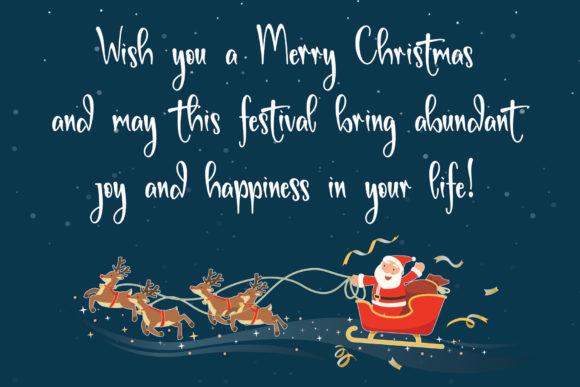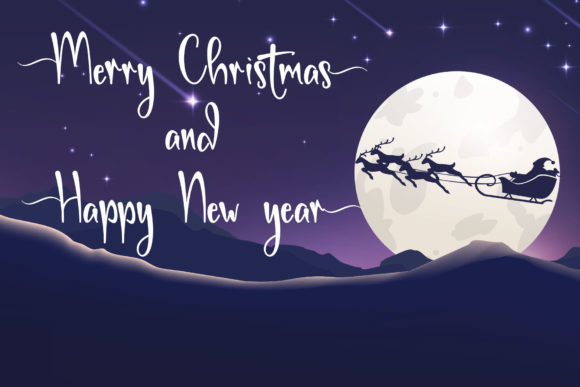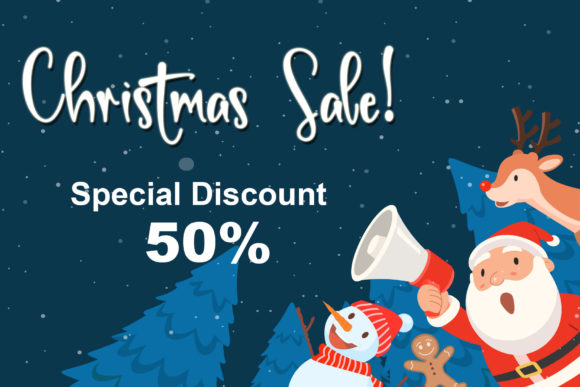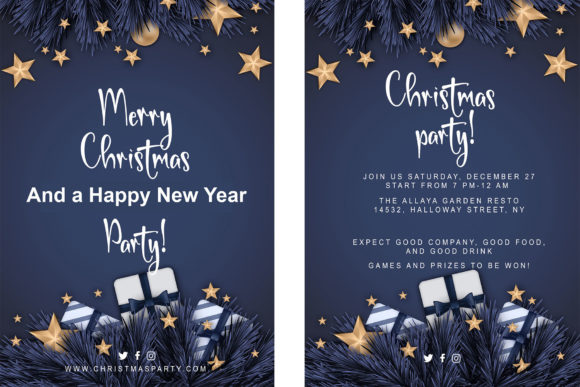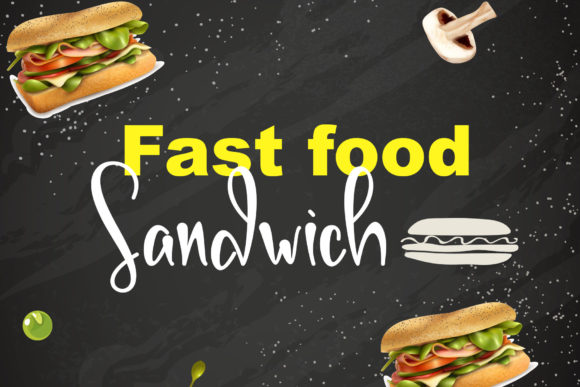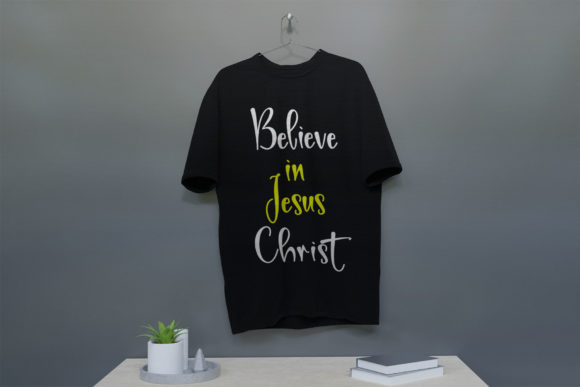
Introduction to Christmas Sleigh Font
Christmas Sleigh is a lovely handwritten font inspired by a festive, modern, and elegant Christmas party.
Christmas Sleigh is perfect for invitations, greeting cards, t-shirt designs, product designs, etc Let’s celebrate Christmas with the Christmas Sleigh font, and make your Christmas even more festive.